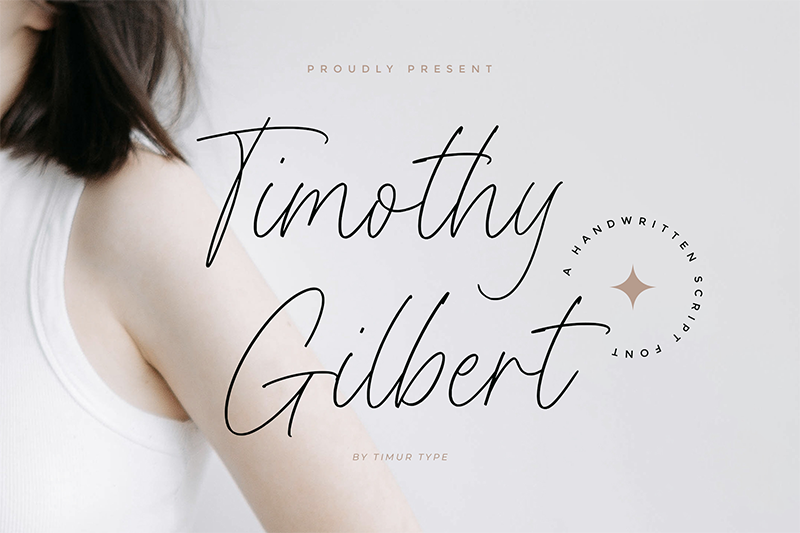
Font name: | Timothy Gilbert |
Author: | Timur Type |
Note by Timur Type | |
Introduced by Timur type Proudly Present�Timothy Gilbert The display font I have created features small Latin-shaped lines, giving it a unique and distinctive appearance. This font resembles a signature, capturing the essence of personalization and elegance. With its intricate detailing and delicate strokes, it adds a touch of sophistication and style to any design or text it is applied to. Its refined and individualistic nature makes it perfect for creating eye-catching headlines, logos, or any other element that requires a personal and handcrafted touch. This font includes: OTF TTF WOFF -Full Set of standard alphabet and punctuation � Timothy Gilbert�also multilingual support. By installing or using this font, you are agree to the Product Usage Agreement: � This demo font is ONLY for PERSONAL USE. NO COMMERCIAL USE ALLOWED! � Here is the link to purchase full version and commercial license: https://timurtype.com/product/timothy-gilbert-font/ � For Corporate use you have to purchase Corporate license timurtype.studio@gmail.com � If you need a custom license please contact us at timurtype.studio@gmail.com More... |